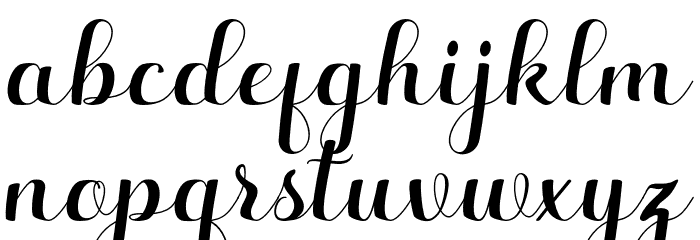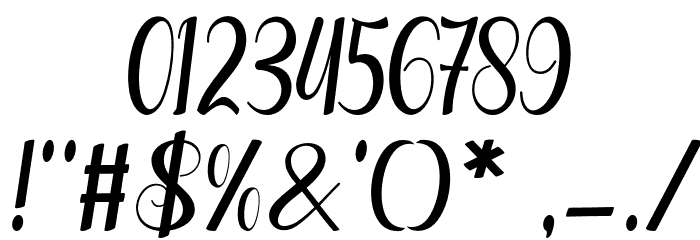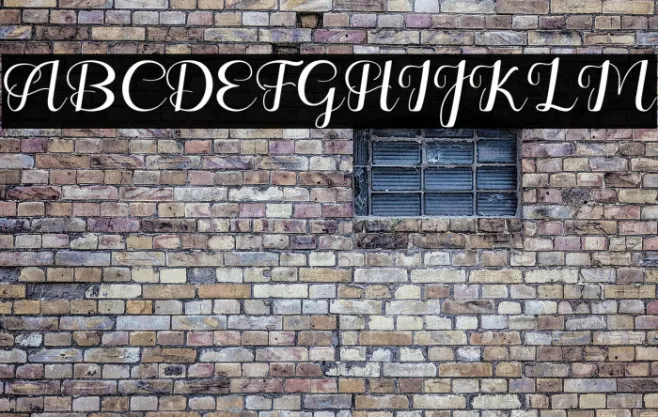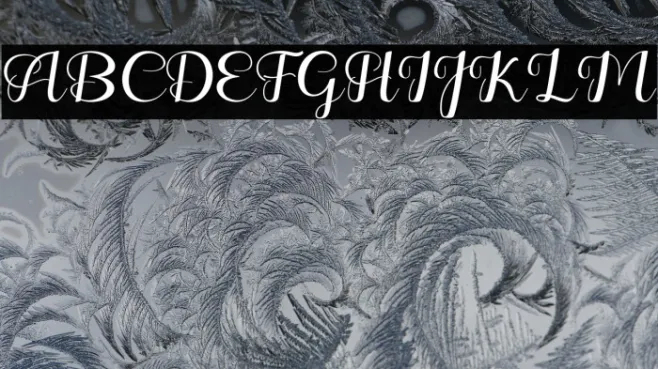
HelloKayla-bbakey Font
This elegant script font features flowing, interconnected letters that exude a sense of sophistication and grace. The uppercase characters are beautifully crafted with sweeping curves and delicate flourishes, while the lowercase letters maintain a consistent style, offering a harmonious blend of formality and charm. The numerals are distinct and stylish, complementing the overall aesthetic. Special characters are thoughtfully designed to match the font's elegant theme, making it versatile for various creative applications. Its smooth, cursive style makes it ideal for projects that require a touch of elegance and personalization.
An elegant script font with flowing, interconnected letters and graceful flourishes.
- Proposed Projects: Ideal for wedding invitations, greeting cards, branding, and elegant logo designs.
- Overall Style: Elegant